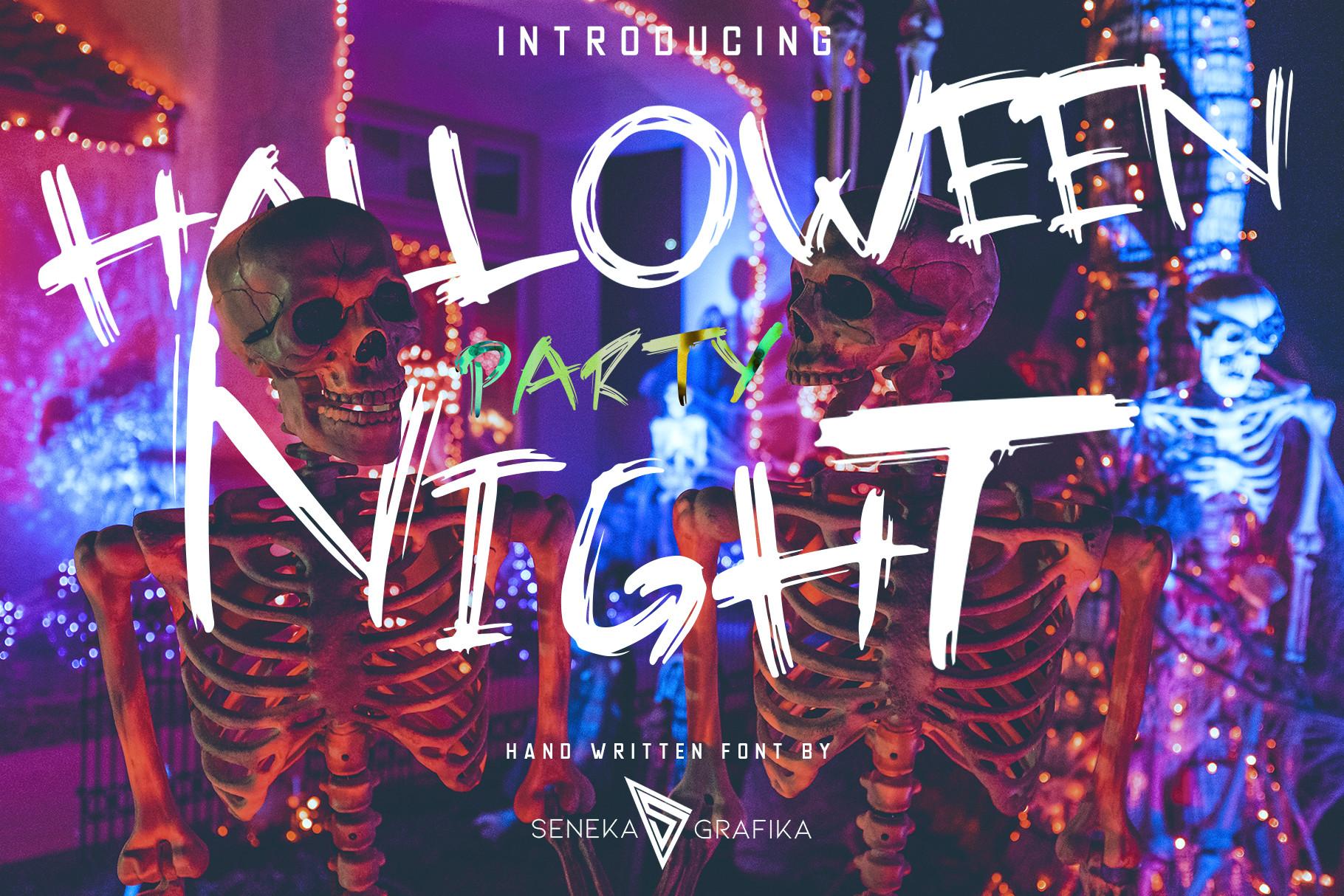
Halloween Party Font Description
The night of October 31, the eve of All Saints’ Day, commonly celebrated by children who dress in costume and go door-to-door asking for candy.
“Every spell it’s a journey”
“Halloween Party” is a unique and simple display font. It’s suitable for a unformal situation such a posters, post card and, any kind of works.